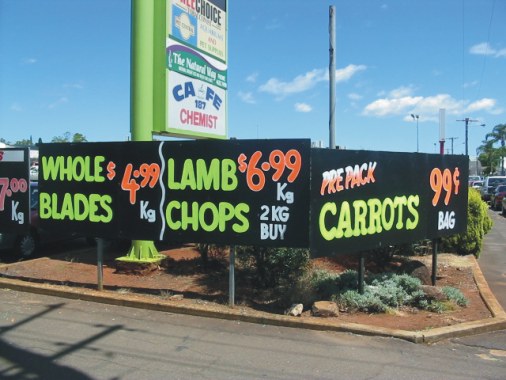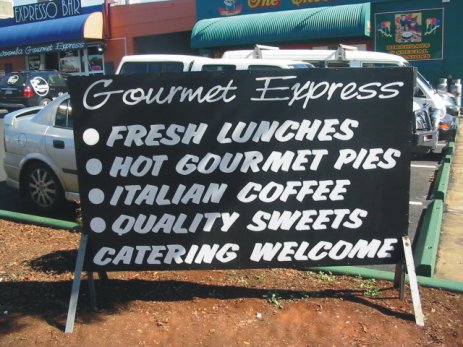
Topic: Hand Job!
Don't you love it when a customer says ... "I don't want any of that sticky sh*t!" I spent 4 hours in the winter sun, doing what I love doing (hand lettering) and getting well paid for it! Customer had this 6x4 planted in the garden outside his Coffee Bar. That's it in the top left corner. I did all the rest of his signs previously. One coat Black Acrylic and two coats white on the lettering. Sun was hot enough it dried real quick. Bottom line was a bit of a bitch to get at. Used the old "Letter with Up-Strokes" trick. $4 max in paint and disposable roller cost. Profit margin 99% !!!!! Life is good. -------------------- Bushie^ aka Jon Butterworth Executive Director HARDLY NORMAL SIGN COMPANY http://www.icr.com.au/~jonsigns
I love that style of casual (I guess you can call it casual?). A local signpainter now in his 70s (and still working hard!) used to do one just like that. For some reason he doesn't do it anymore. -------------------- Michael Gene AdkinsThe Fontry Rt 2 Box 238 Watts OK 74964 fontry@tcac.net
Lol! I guess all us old guys fall back on that style for simple knock outs! Maybe not quite as bold, tho. Very readable and quick to do! -------------------- Si Allen #562 La Mirada, CA. USA (714) 521-4810 si.allen on Skype siallen@dslextreme.com"SignPainters do It with Longer Strokes!" Never mess with your profile while in a drunken stupor!!!Brushasaurus on Chat
It's listed in my Fonts as Churchwood Brush Bold. Also "Balloon" is a very similar style. It's formed two brush strokes wide. Medium is a single stroke wide and most letters are formed with only 2 or 3 strokes. VERY quick and easy. I teach it as a basic casual lettering style. -------------------- Bushie^ aka Jon Butterworth Executive Director HARDLY NORMAL SIGN COMPANY http://www.icr.com.au/~jonsigns
Certainly sweet lady In fact I'll show you, and anybody else interested another couple of very quick "bash" fonts I use. There's the "round" one I use on the butcher's signs. Looks like sausages. With a 1" truck brush for example the "S' can be formed with as little as 1 load and 4 strokes! The "serf" style for the greengrocer is just as quick. The "T' can be formed with 4 strokes too. It took me just over an hour to do these 3 "blackboards", that's including the fluro over the white undercoat. At $45 each .... that's GOOD money! See you there. -------------------- Bushie^ aka Jon Butterworth Executive Director HARDLY NORMAL SIGN COMPANY http://www.icr.com.au/~jonsigns